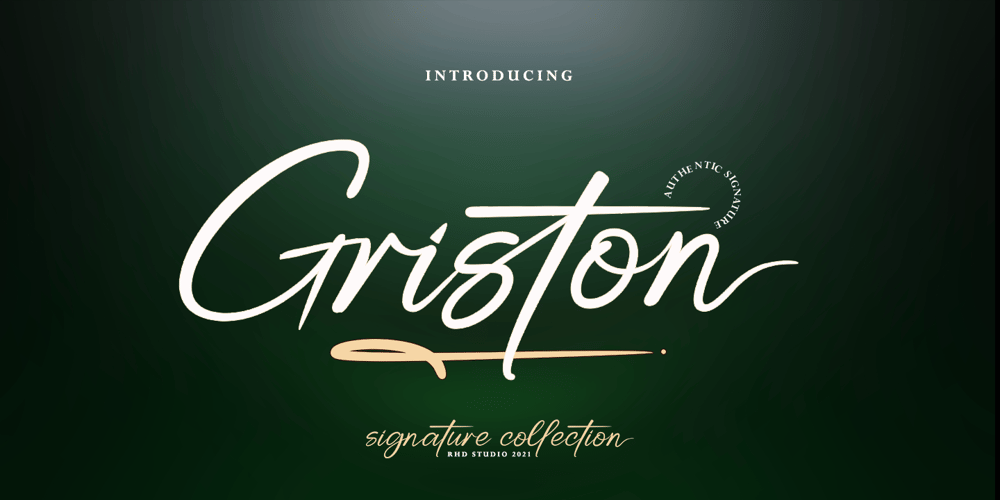
Griston
Griston font
Griston Font Family was designed by Rahmad Rizky and published by Rhd Studio. Griston contains 1 styles and family package options. Introducing the newest product, Griston font, this font is perfect for creating signature logos and watermarks for photography studios or photography logos, best for initial logos or brand signatures. Made with elegant, professional and unique taste,You can try it first by typing what you want below made simple but has a very luxurious feel, this font has a lowercase alternative that is very similar to handwriting using a pen so it is suitable for signatures, logos, watermarks and more. again. can create custom personalized signatures, create custom logos, so this awesome signature is for all.maybe next time I will make an italic or slant version if this font is in great demand and can help with many things you want for signatures, logo branding, or watermarks.If you have any questions about the latest fonts, please send a short messagethank you